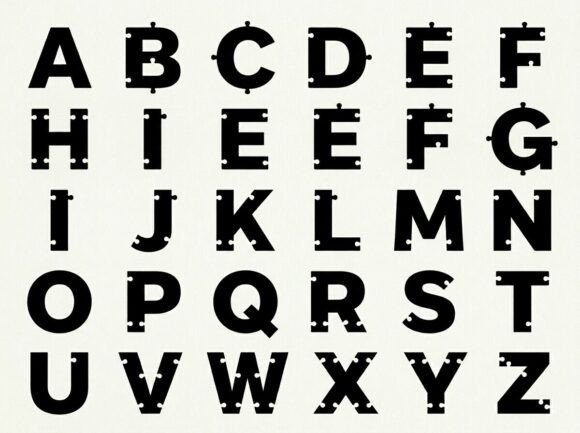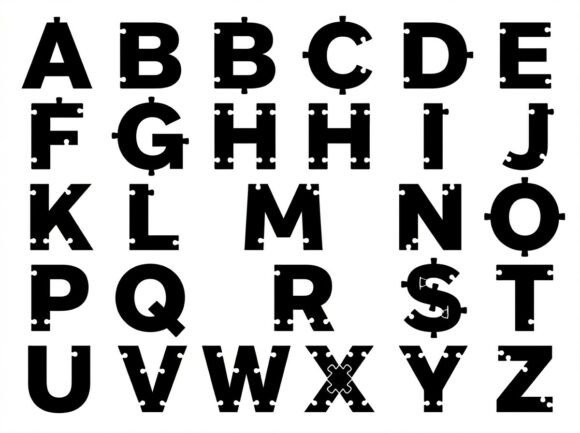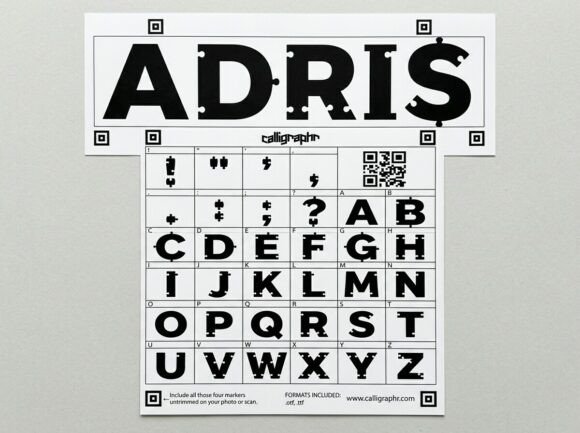
Introducing Adris Font: Elevate Your Creative Projects with a Unique Display Font
Are you tired of using the same old fonts for your creative projects? Do you want to make a statement and stand out from the crowd? Look no further than Adris Font, a decorative display font designed to be the centerpiece of any layout. With its distinct artistic elements and strong character, Adris Font is perfect for creators who want to break away from the ordinary and add a touch of sophistication to their work.
What Makes Adris Font Special?
Adris Font is a one-of-a-kind display typeface that is designed to make a bold statement. Its unique artistic elements and strong character make it perfect for a variety of creative projects, from bold headlines to creative branding and packaging. Whether you’re a designer, craftsperson, or DIY enthusiast, Adris Font is the perfect choice for anyone looking to add a touch of elegance and sophistication to their work.
Key Features of Adris Font
So, what sets Adris Font apart from other fonts? Here are just a few of its key features:
- Distinct Artistic Elements: Adris Font features unique artistic elements that set it apart from other fonts. Its bold lines, curves, and shapes make it perfect for creating eye-catching headlines and titles.
- Strong Character: Adris Font has a strong character that is perfect for making a statement. Whether you’re creating a bold headline or a decorative initial, Adris Font is sure to turn heads.
- High-End Aesthetic: Adris Font delivers a high-end, professional aesthetic without compromising on personality. It’s perfect for creators who want to add a touch of sophistication to their work.
Technical Note: All-Caps Display Typeface
By design, Adris Font is an all-caps display typeface. This means that it does not contain lowercase letters, making it a powerful tool for logos, titles, and decorative initials. This unique feature sets Adris Font apart from other fonts and makes it perfect for creators who want to make a bold statement.
How to Use Adris Font
Adris Font is perfect for a variety of creative projects, including:
- Bold Headlines: Use Adris Font to create eye-catching headlines that grab attention.
- Creative Branding: Use Adris Font to create unique and memorable brand identities.
- Packaging: Use Adris Font to add a touch of sophistication to your packaging designs.
- Logos: Use Adris Font to create bold and memorable logos that stand out.
In conclusion, Adris Font is a unique and powerful display font that is perfect for creators who want to elevate their creative projects. With its distinct artistic elements, strong character, and high-end aesthetic, Adris Font is sure to turn heads. Whether you’re a designer, craftsperson, or DIY enthusiast, Adris Font is the perfect choice for anyone looking to add a touch of sophistication to their work.